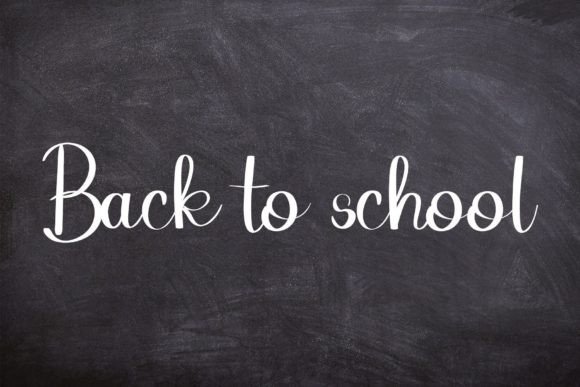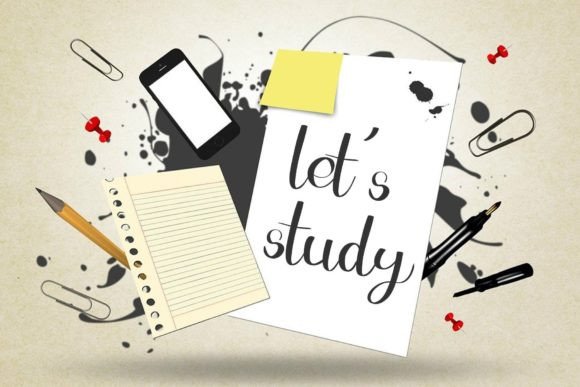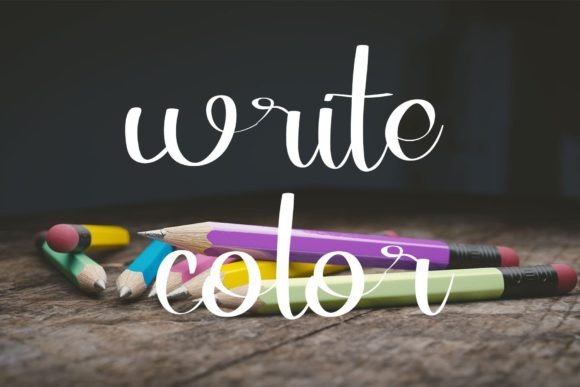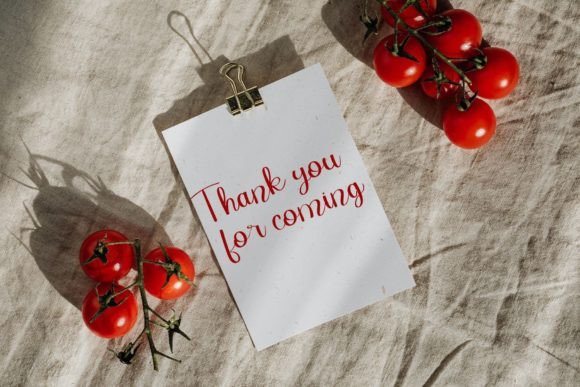
School Font
About School Font
School is a welcoming handwritten font, thoughtfully crafted to become an instant favorite. With a delightful blend of classy calligraphic influences and a contemporary, fresh feel, this font effortlessly bridges the traditional and the modern.
Its friendly and approachable demeanor makes School an excellent choice for a wide range of applications. Whether used for educational materials, informal communication, or creative projects, this font adds a touch of warmth and personality to the text.
The careful design of School ensures that it retains its calligraphic charm, offering a timeless quality that makes it versatile across various contexts. Whether you’re working on invitations, signage, or digital content, School brings a sense of friendliness and authenticity to the forefront.
Overall, School is not just a font; it’s a reliable and stylish companion for designers and creators. Its unique blend of classic calligraphy and contemporary freshness makes it a go-to choice for those seeking a versatile and friendly handwritten font that stands the test of time.